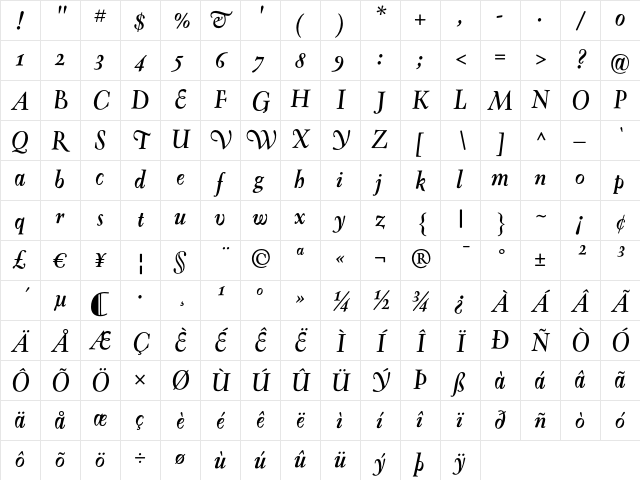
Oneleigh BoldItalic Free Font
Oneleigh BoldItalic
Design Context for Oneleigh
Oneleigh is a composed and adaptable typeface that performs quietly and consistently across a wide range of design contexts. The slanted form adds forward momentum and visual energy. Its bold stroke weight gives it real presence on the page.
Pro Tip: Use Oneleigh for emphasis, pull quotes, and subheadings where its slanted energy can add rhythm to the layout.